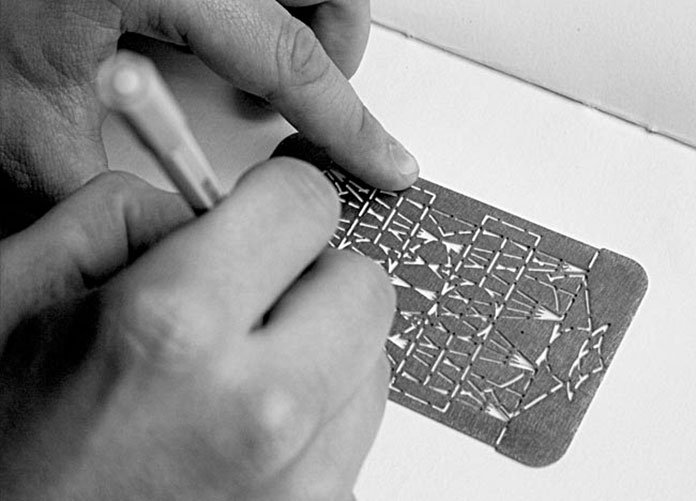
Plaque Decoupée Universelle, 1876
In 1876 Joseph A. David acquired the patent for Plaque Découpée Universelle, a system that he had invented for sign-writers. With a universal stencil, all UPPERCASE, lowercase, numbers, punctuation, accents etc could be sourced from the grid of the stencil. → Palace of Typographic Masonry